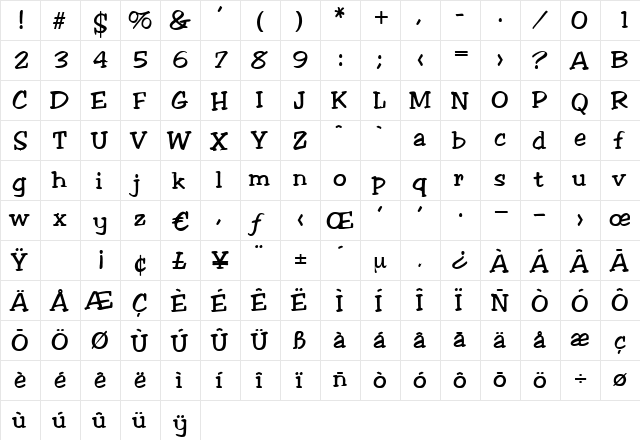
Cochise Regular
Design Context for Cochise Typeface
Cochise is a composed and adaptable typeface that performs quietly and consistently across a wide range of design contexts.